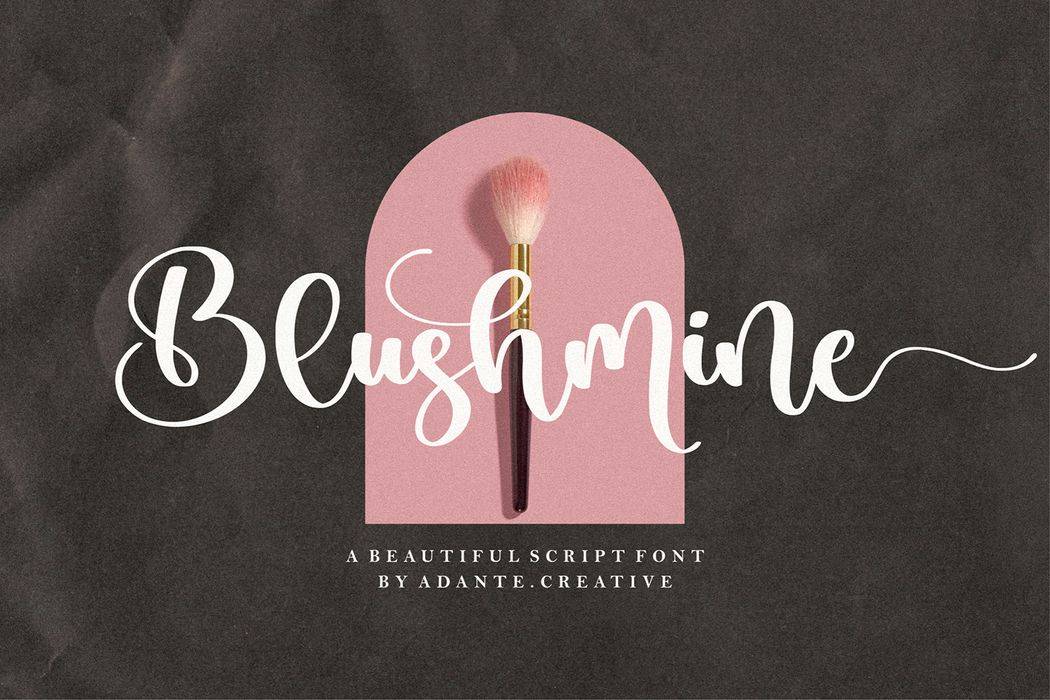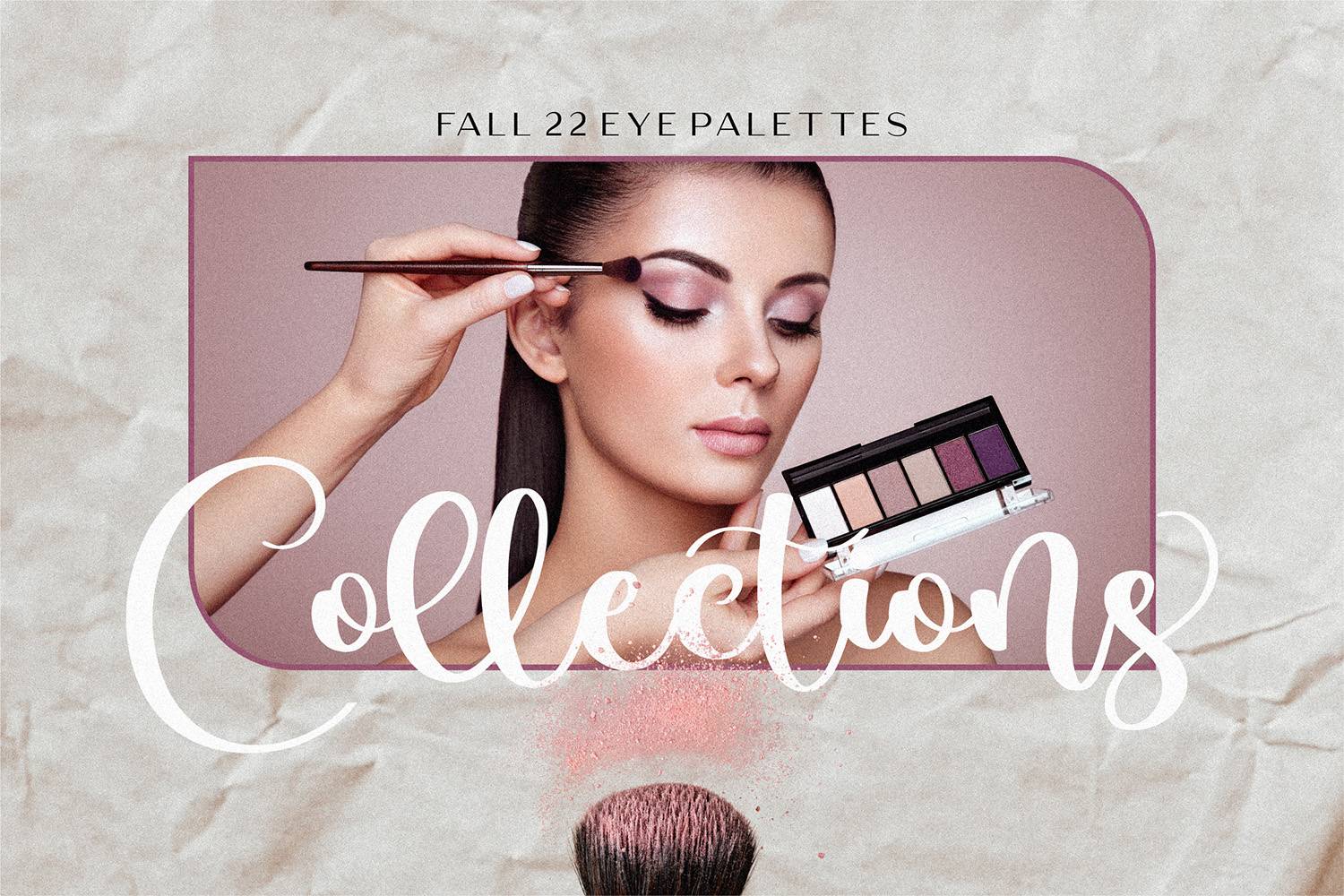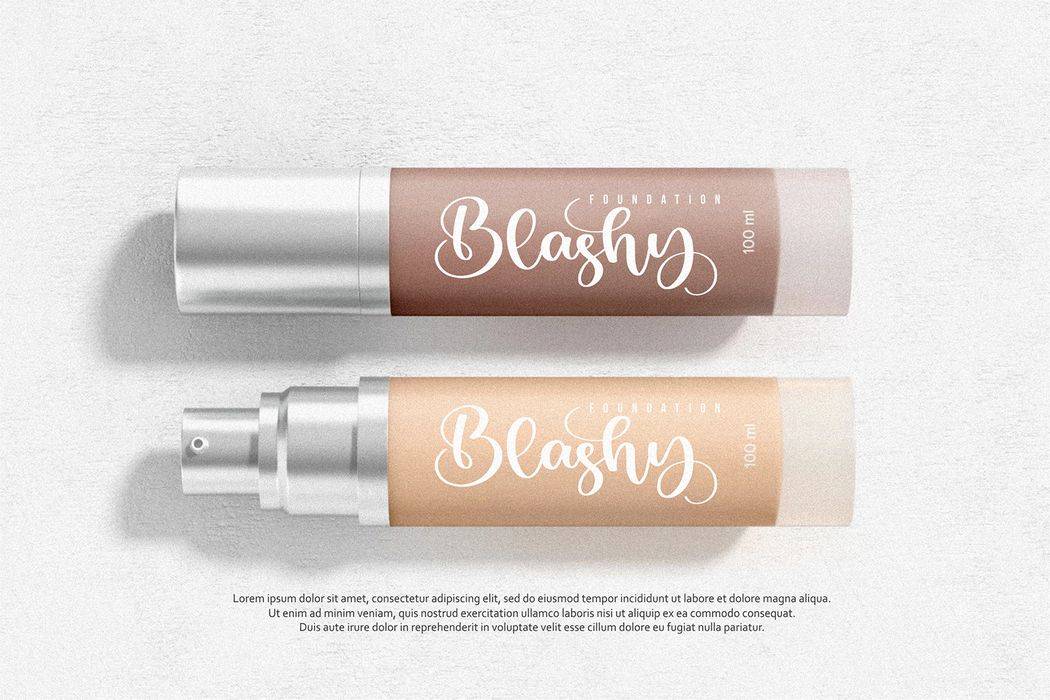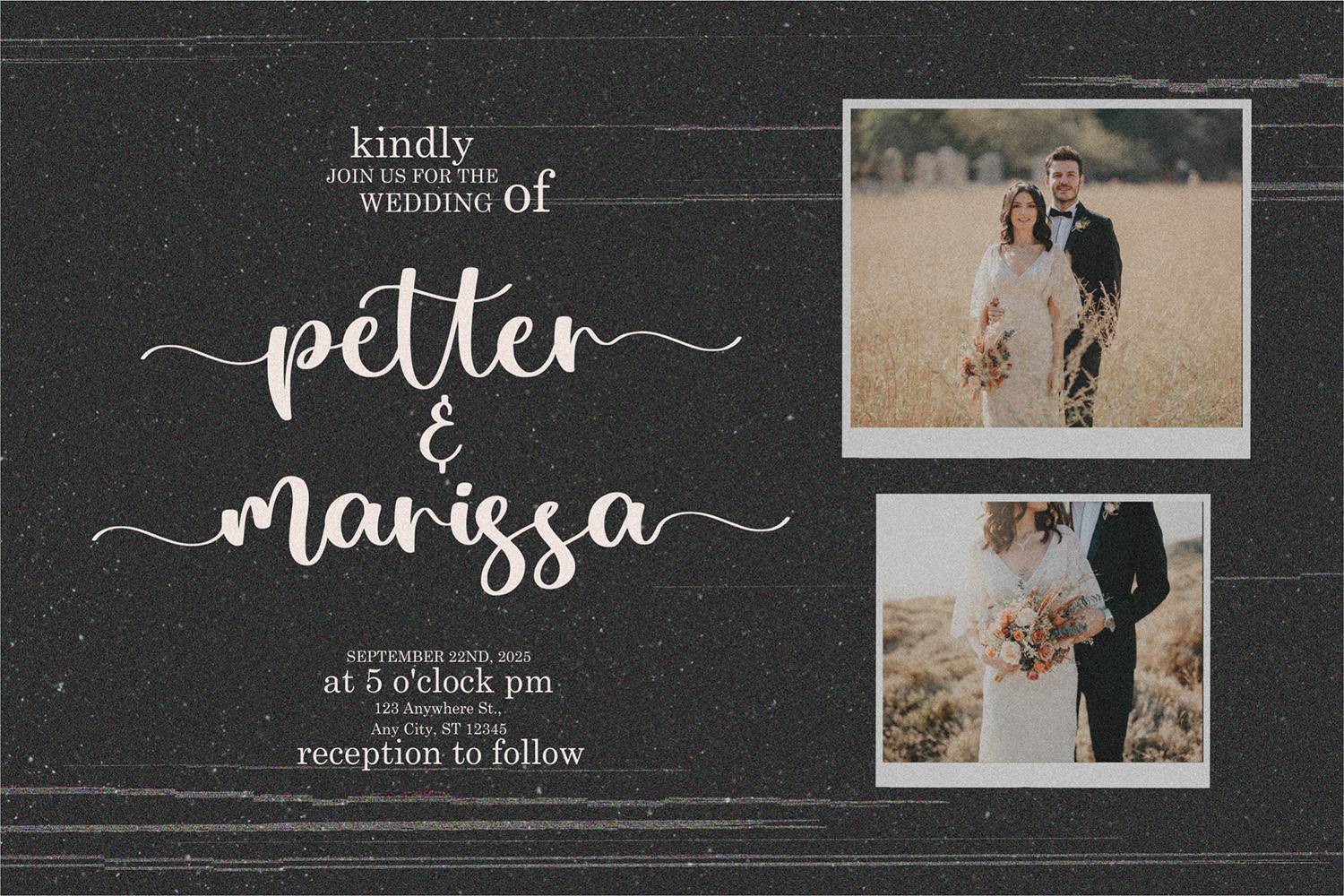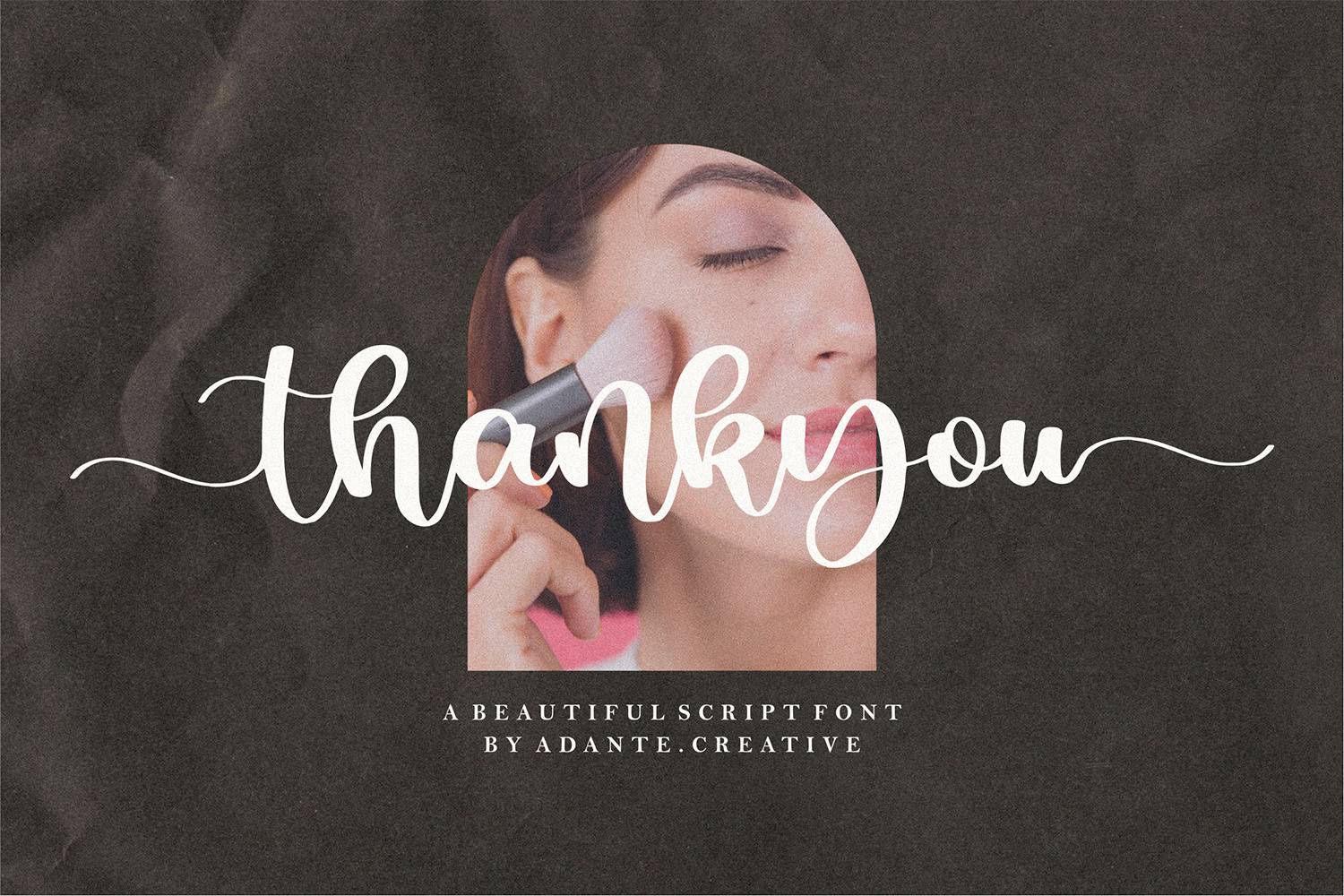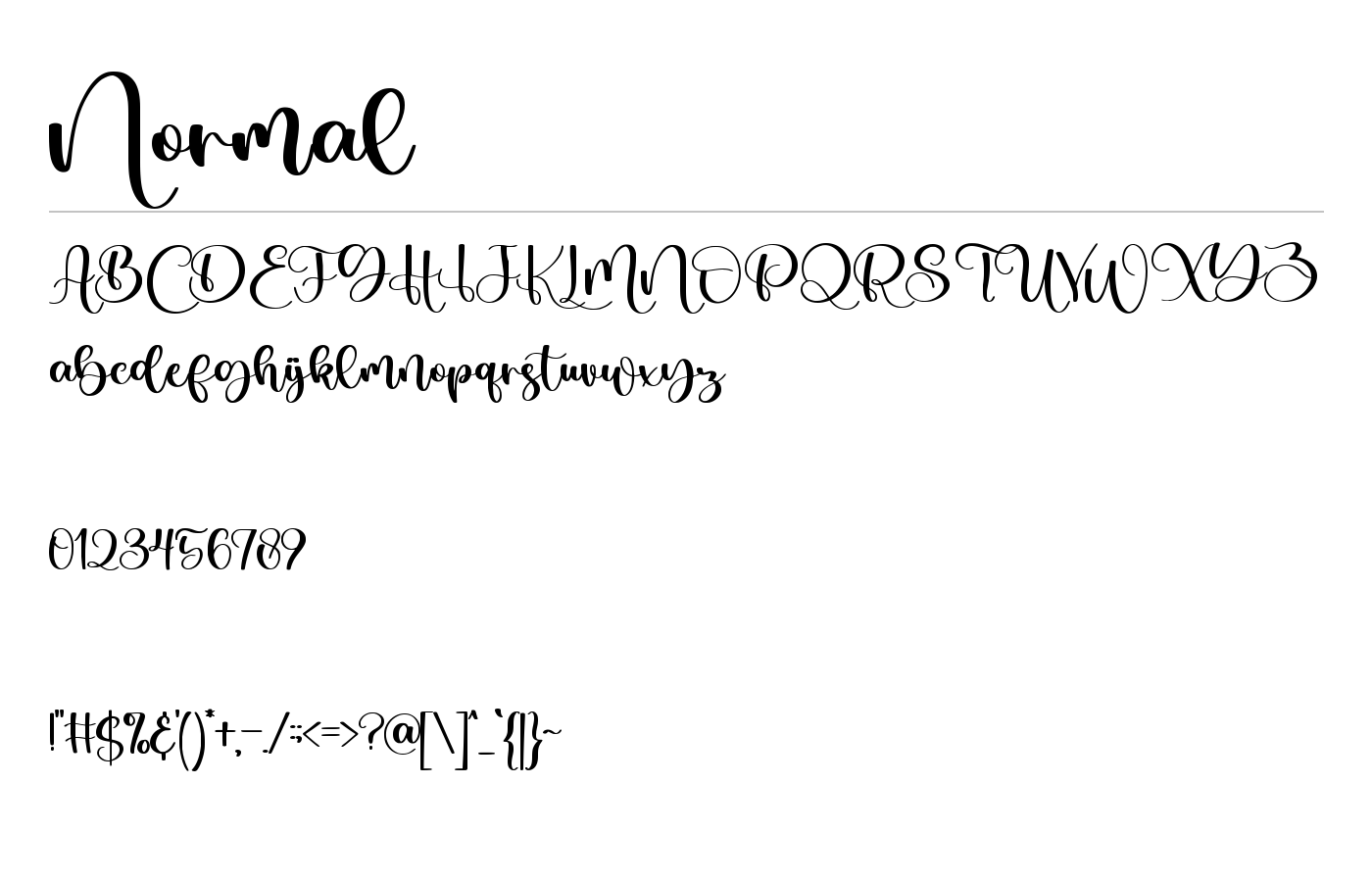
Blushmine is a charming script font with elegant, flowing letterforms that combine thick and thin strokes for a dynamic, hand-lettered feel. Its whimsical curves and delicate swashes create a lively yet graceful style, perfect for branding, invitations, and projects that desire a playful, sophisticated touch. This font shines in settings where a personal, artistic vibe is needed to add warmth and creativity.
Blushmine Font
| Designer | Adante.Creative |